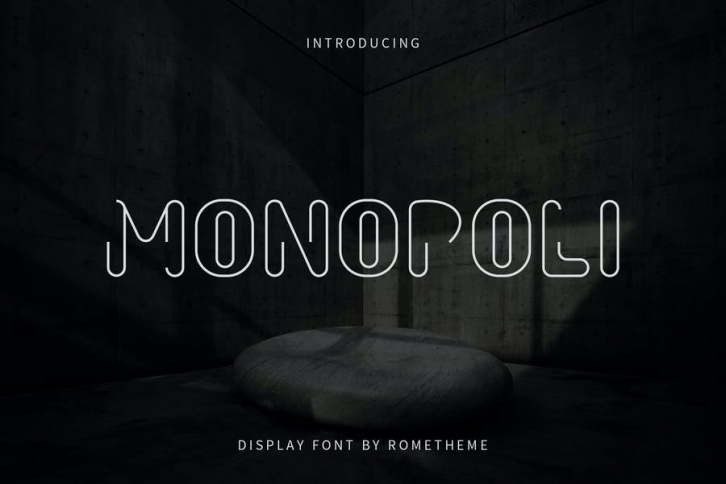
Monopoli is a display typeface with elegant in every single letter. This font looks modern, readable, stylish, catchy and easy to use.
Monopoli Font is the best choice for your professional design projects, including : logo, poster design, t-shirt, headline, flyer, cd cover album, quotes, business card, branding, magazines, social media, advertisements, product designs, or something that need modern or futuristic looks.
• The perfect font choice for powerful projects - watermarks, signatures, photography, logos, business cards, quotes, album covers.